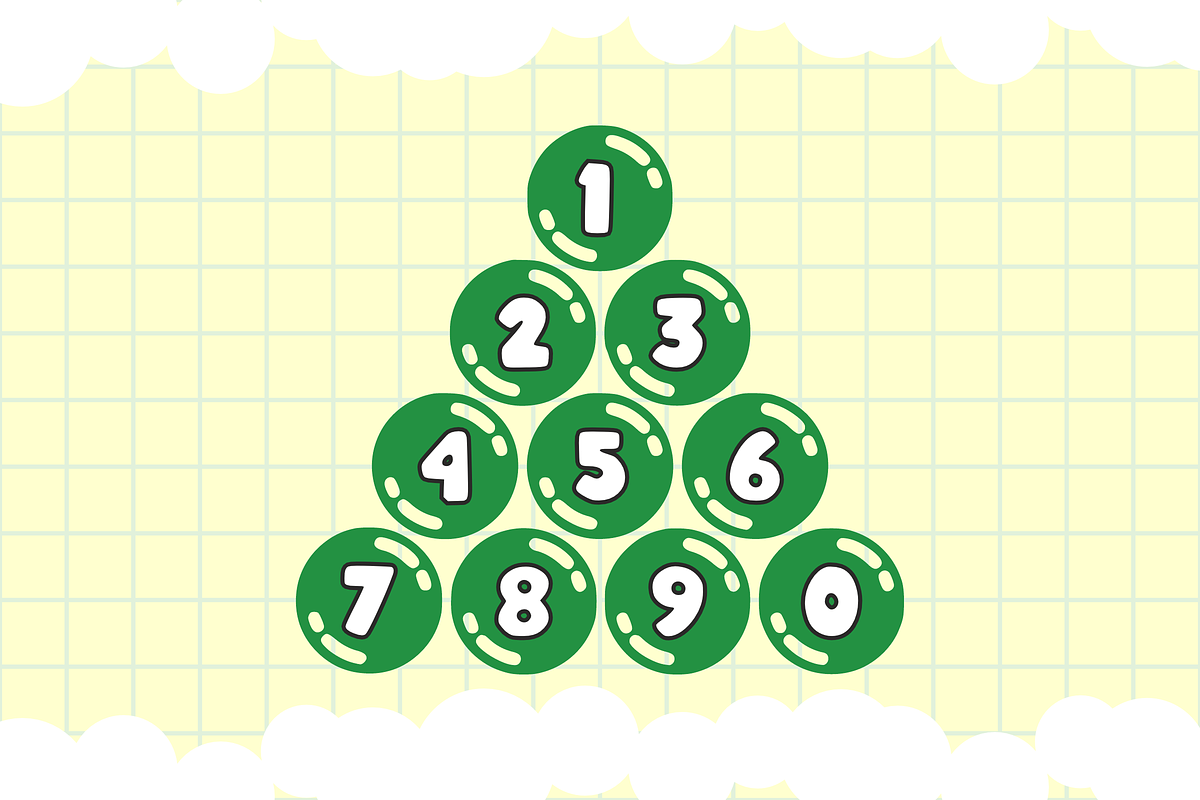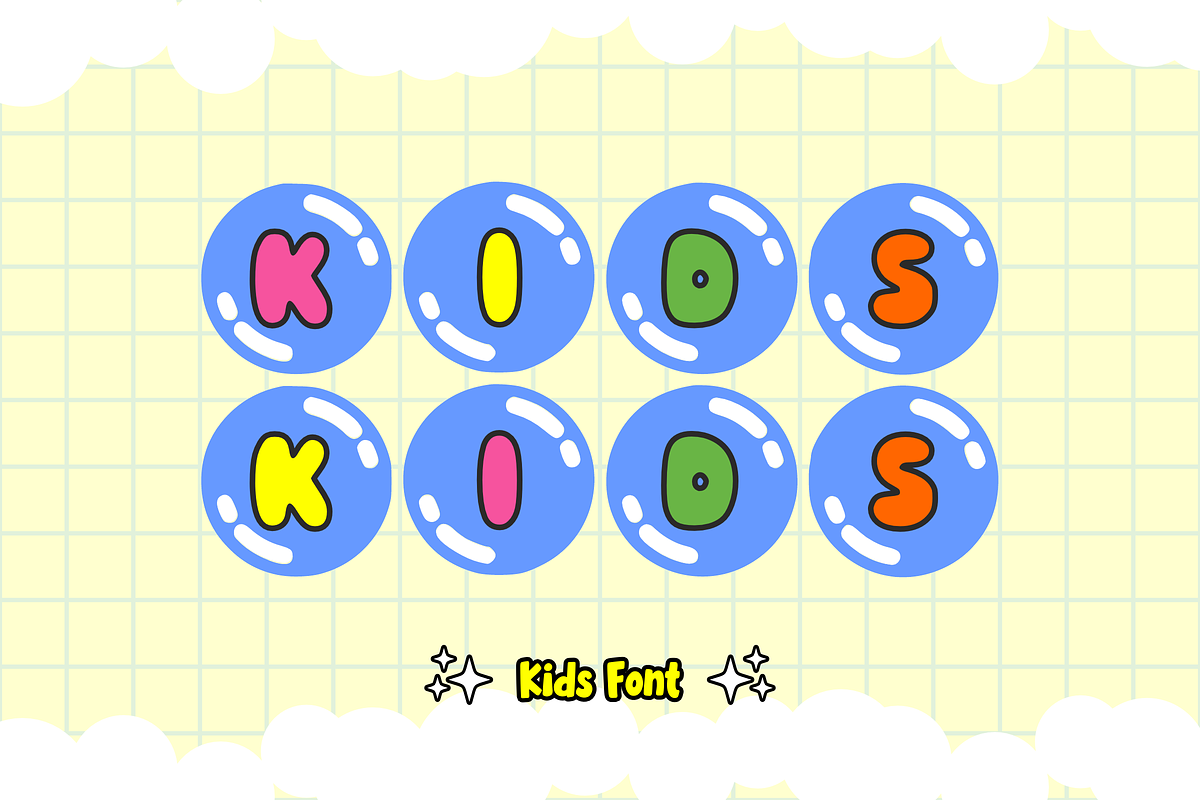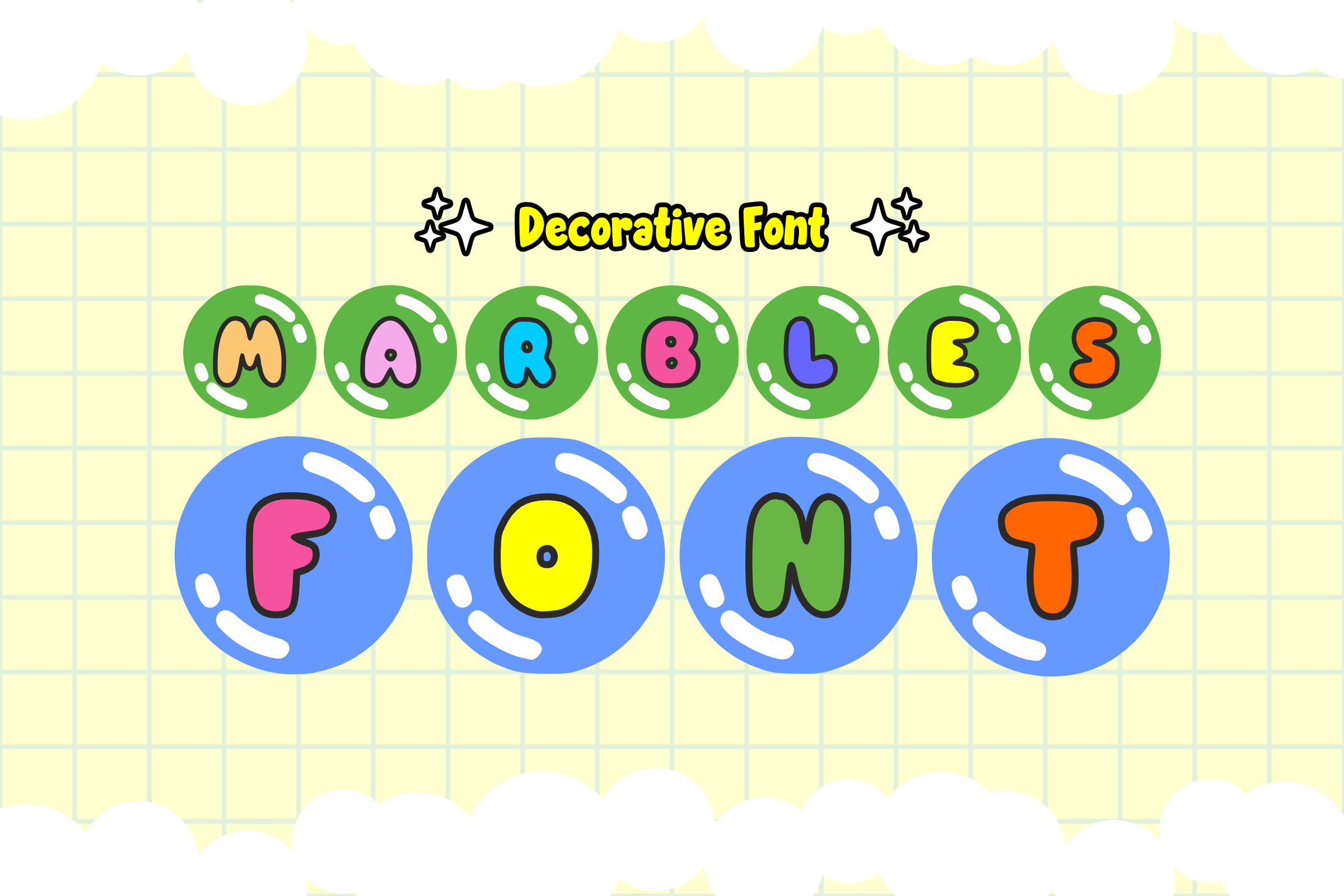
Marbles Font - Decorative Font
⚪ Marbles Font - Playful Dotted Display Font ⚫ Roll into creativity with Marbles Font! This charming display font features bold, chunky letters filled with a delightful polka-dot pattern that mimics the fun look of marbles. With its thick "sticker-style" outlines and bouncy personality, it’s the perfect choice for designs that need to be sweet, energetic, and visually engaging.
Whether you're working on a retro-pop project or a modern kids' brand, Marbles Font adds a unique texture that makes every word bounce off the page!
✨ Main Features: ⚪ Dotted Uppercase: Bold characters with a fun "marble" pattern fill.
🔢 Numbers 0-9: Consistent dotted numerals for ages, dates, and prices.
🎈 Simple Symbols: Essential punctuation to complete your playful messages.
✂️ Clean Outlines: Smooth edges ideal for sticker printing and vinyl cutting.